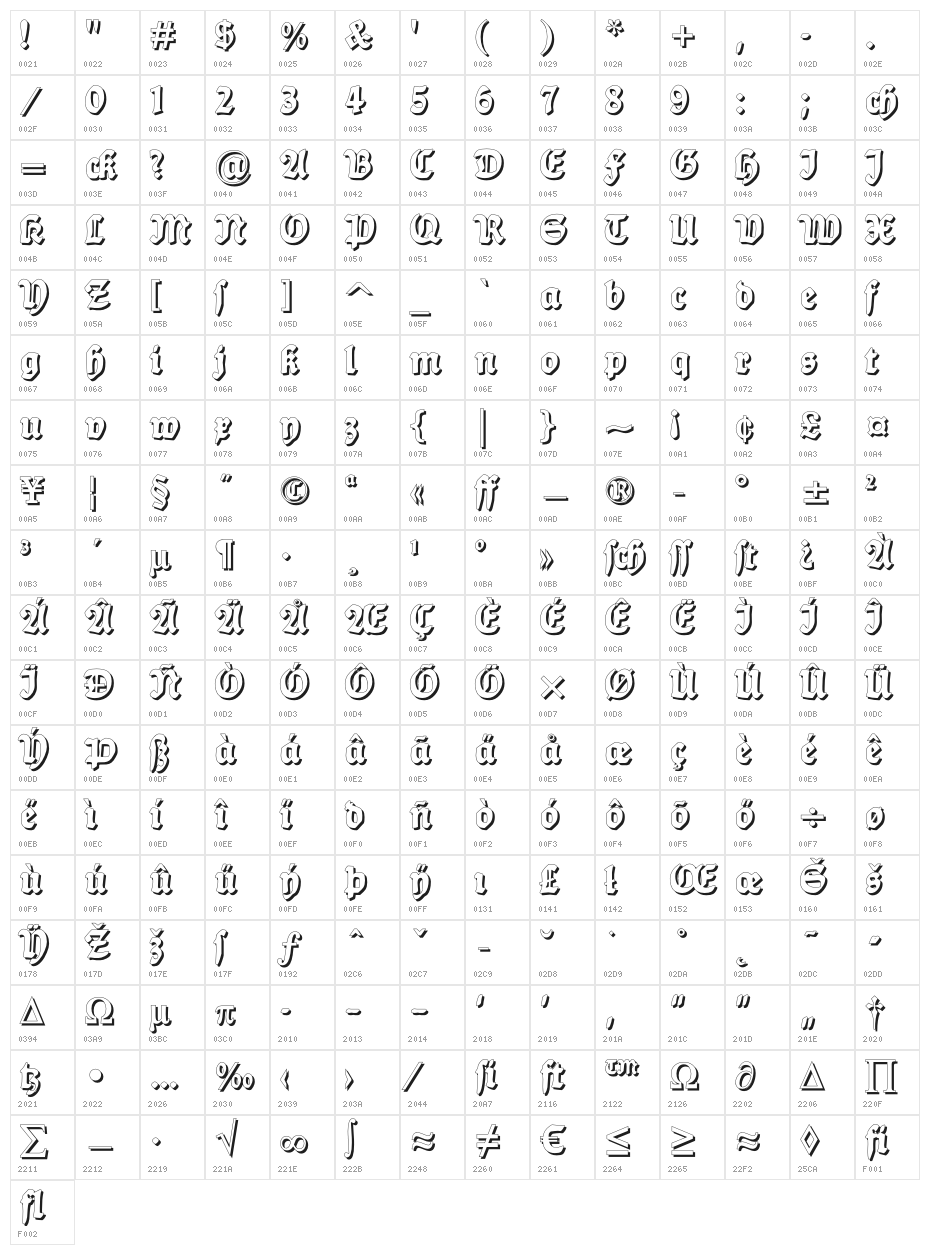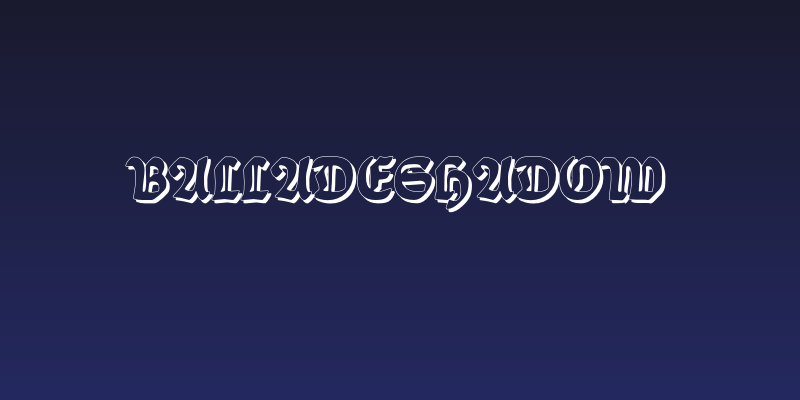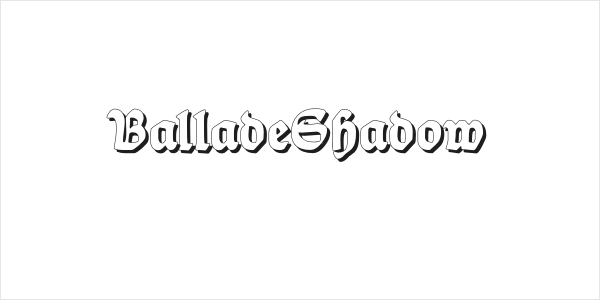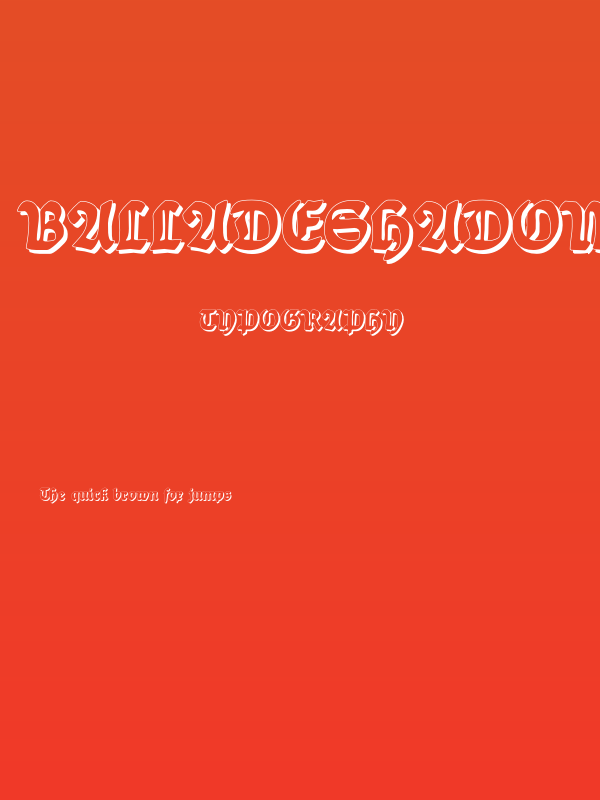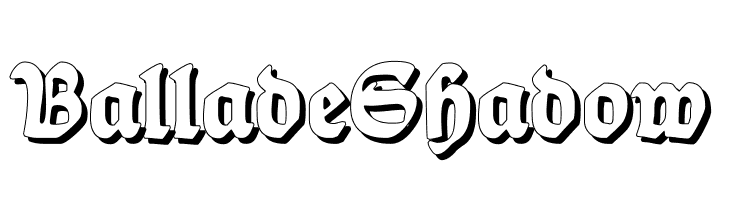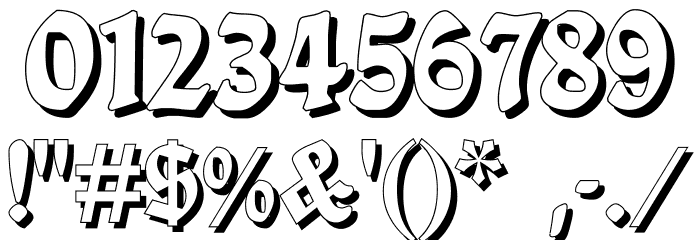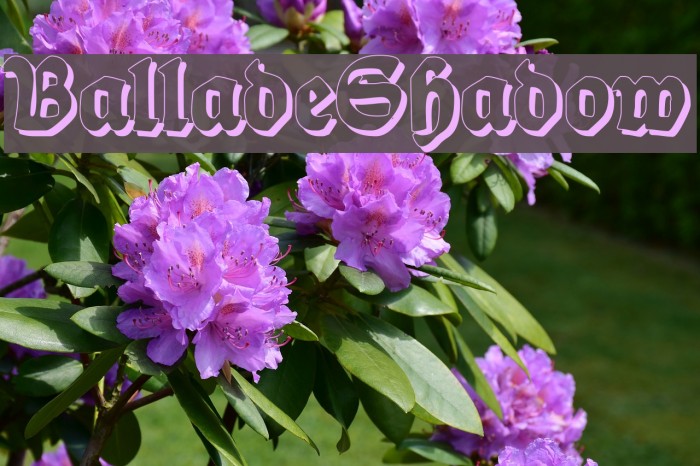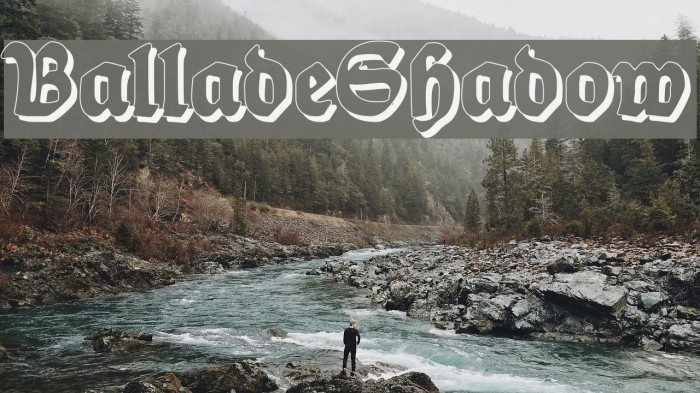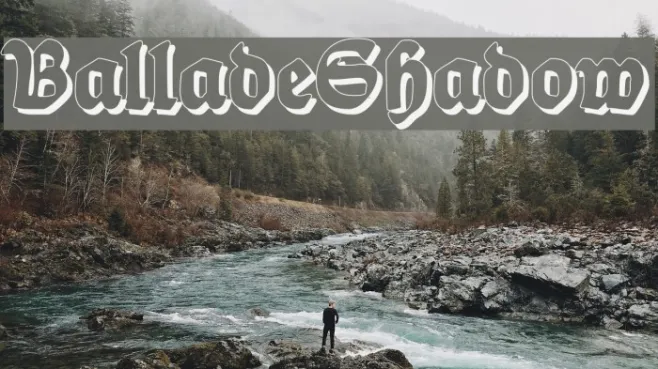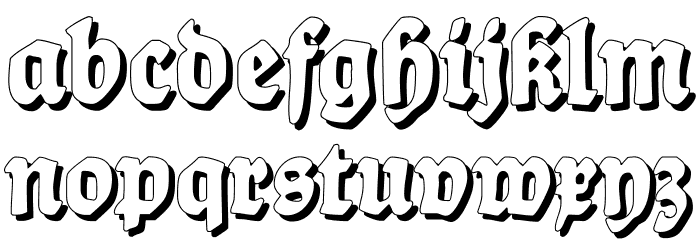
BalladeShadow Font
BalladeShadow Description
This font features a bold, decorative style with a distinct shadow effect that gives it a three-dimensional appearance. The characters are reminiscent of traditional blackletter fonts, with sharp angles and ornate details. The uppercase and lowercase letters maintain a consistent design, enhancing the font's cohesive look. Numbers and special characters are crafted with the same attention to detail, making them stand out. The shadow effect adds depth, making it suitable for eye-catching designs. This font is ideal for projects that require a dramatic and vintage aesthetic.